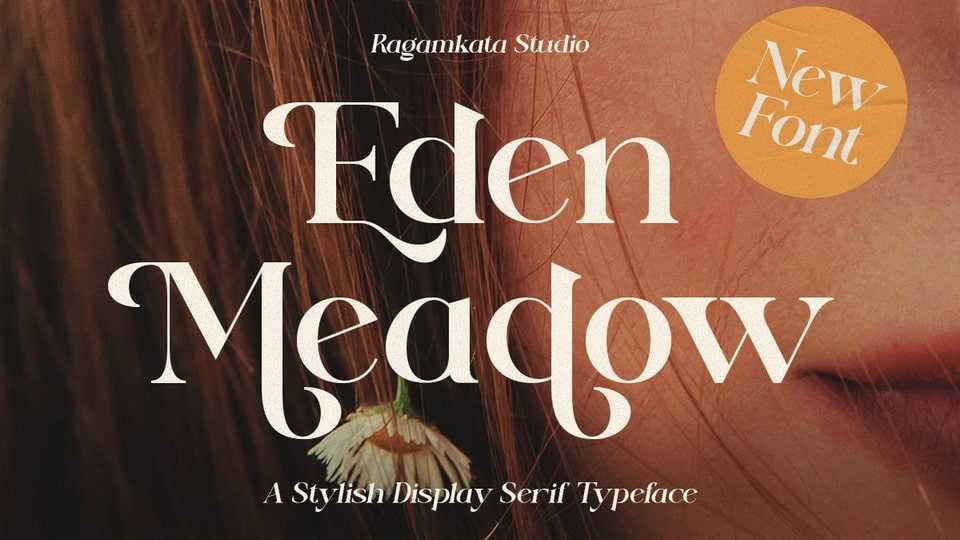
Download Eden Meadow font, a unique typeface that can be used for a variety of design styles. It fits in wonderfully for free-spirited, boho designs and also for more classy editorial looks!